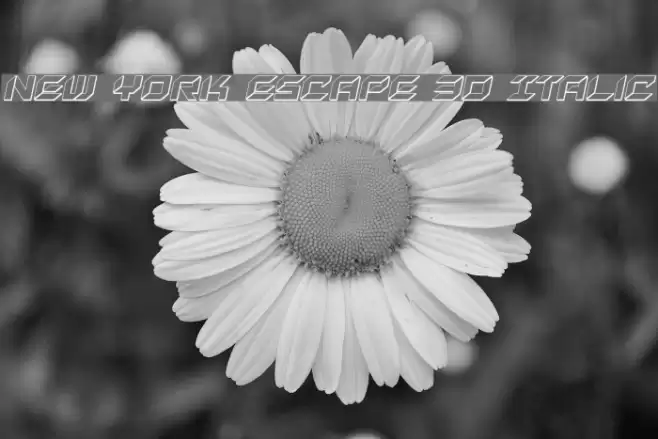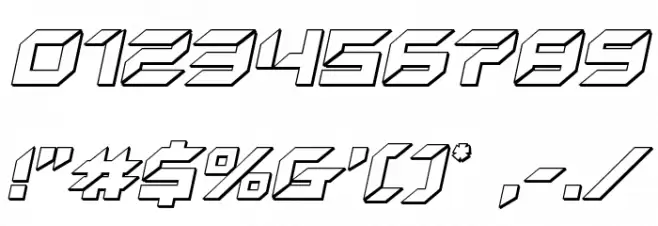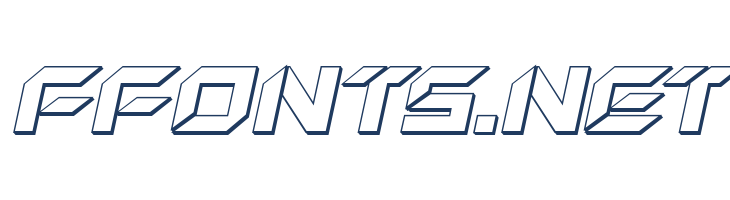
New York Escape 3D Italic Font
New York Escape 3D Italic Description
This font features a bold, geometric design with a 3D effect that gives it a modern and dynamic appearance. The characters are constructed with sharp angles and clean lines, creating a sense of movement and depth. The italic style enhances the forward-leaning, futuristic look of the font. The uppercase and lowercase letters maintain a consistent style, while the numerals and special characters complement the overall design. This font is ideal for projects that require a strong visual impact and a contemporary feel.
A bold, geometric 3D italic font with a modern, dynamic style from Uncategorized fonts.
- Proposed Projects: Ideal for branding, posters, video game titles, and futuristic-themed designs.